Comic Sans for Cancer – Poster Contribution
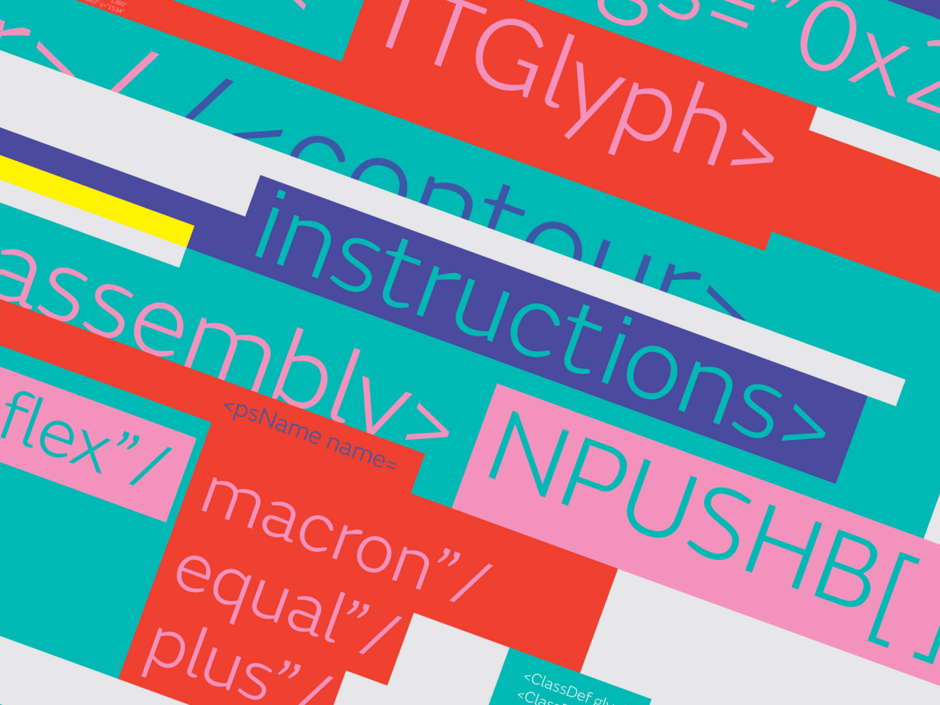
Fontsmith were invited to submit a poster design to the Comic Sans for Cancer charity event, organised by our good friend and Soapbox & Sons creative director Jenny Theolin. Over 500 designers submitted proposals and our design was lucky enough to be picked! It was featured in the exhibition which is aimed at raising money and awareness for Cancer Research UK.
The brief was simple – design a poster inspired by the Comic Sans typeface.
The design was born out of the idea that every font file is essentially a series of text files comprised in tables of data. In themselves, these tables have their own inherent beauty, they expose the instructions within a font that enable us to see the alphabetical shapes we love to use each day. I wanted to expose Comic Sans, ‘decode’ it and show an aspect of typeface design that is very rarely seen. I wanted to do this in a graphically interesting way, appropriate to ‘code’ yet also one that felt sympathetic to the vibrant and upbeat comic sans aesthetic. All of the typographic information within our submission was extracted from the data within the Comic Sans MS - Regular font file. So I present to you – the underlying beauty of an allegedly ugly font.